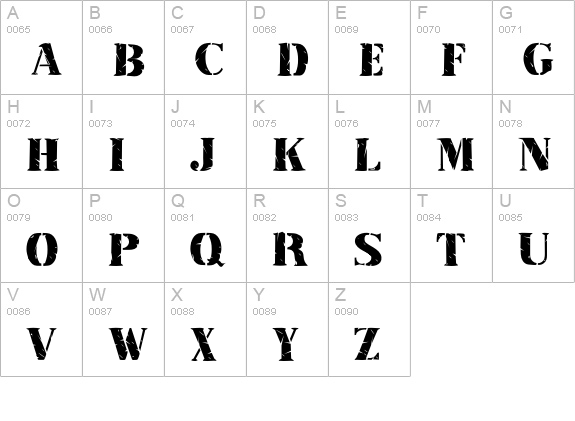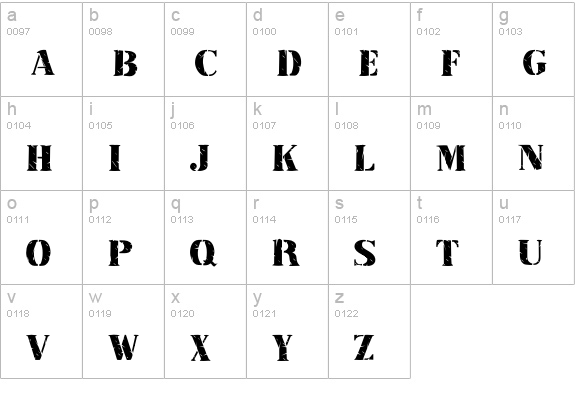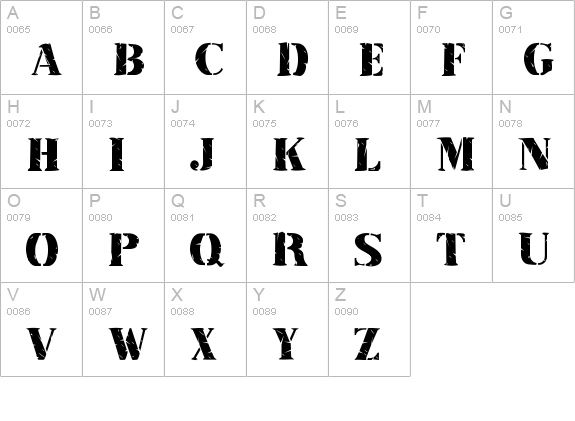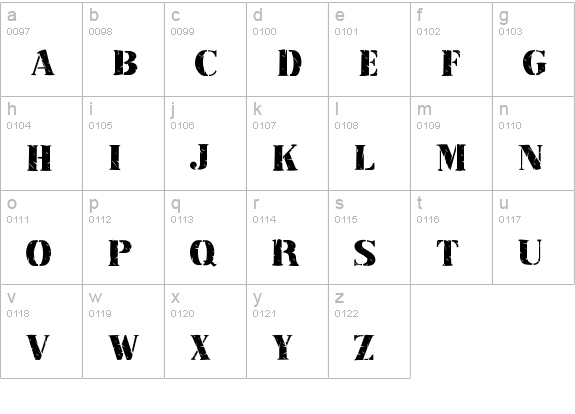
StampFont Font Details
Introducing StampFont, a versatile and eye-catching font that is sure to make a lasting impression. With its bold and distinctive lettering, StampFont adds a touch of uniqueness to any project or design. Whether you're creating invitations, logos, posters, or social media graphics, this font is the perfect choice to make your message stand out. StampFont features a stunning collection of characters, each meticulously crafted to resemble the look and feel of a stamped impression. The irregular edges and slightly uneven spacing give this font a handcrafted and authentic feel, making it perfect for adding a personal touch to your designs. One of the best things about StampFont is that it is completely free to download. Yes, you heard that right – this incredible font is available at no cost to you! Simply head over to FontsMarket.com and download StampFont to start using it in all your creative endeavors. Whether you're a professional designer or a DIY enthusiast, this font is a valuable addition to your font collection. Not only is StampFont free, but it also offers a wide range of customization options. With various weights and styles to choose from, you have the freedom to experiment and find the perfect look for your project. Whether you prefer a bold and impactful statement or a more subtle and elegant touch, StampFont has got you covered. So, why wait? Take advantage of this amazing opportunity to enhance your designs with the captivating and versatile StampFont. Download it for free at FontsMarket.com and unlock a world of creative possibilities. Let your imagination run wild with this exceptional font and watch your designs come to life.